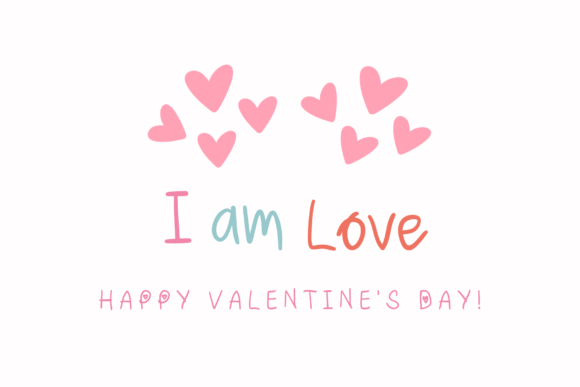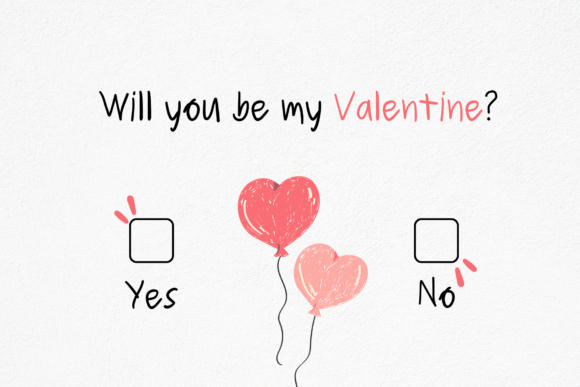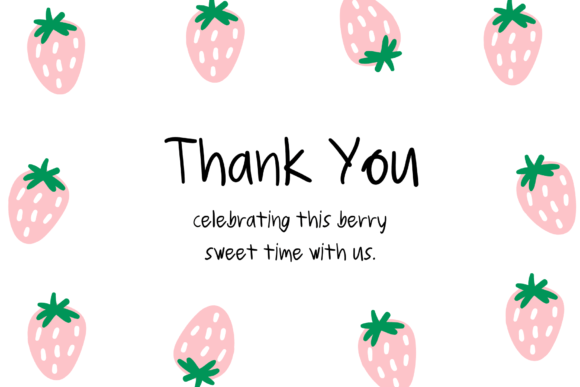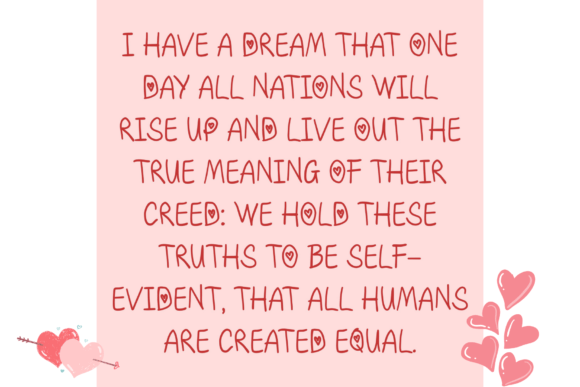
The Sweetest Font for Your Designs: A Comprehensive Guide to Chocolate Font
I’ll never forget the moment I stumbled upon the perfect font for a whimsical wedding invitation project. I was on a tight deadline, and my client wanted a design that was both playful and elegant. As I scrolled through my font library, I discovered Chocolate Font, and it instantly became the star of the show! 🍫 In this article, I’ll share my love for this adorable handwritten display font, its features, and how to make the most of it in your designs.
An Honest Review of Chocolate Font
So, what makes Chocolate Font so special? Let’s dive into the good stuff and a few quirks to keep in mind.
- ✨ Cute and Friendly: Chocolate Font is perfect for adding a touch of whimsy to your designs, making it ideal for crafts, digital design, presentations, wedding invitations, cards, and more.
- ✅ Easy to Read: Despite its playful nature, Chocolate Font remains highly legible, even at smaller sizes.
- 🎨 Versatile: This font is suitable for a wide range of creative projects, from school materials to professional designs.
While Chocolate Font is amazing, there are a few things to keep in mind:
- 🤔 Limited Formality: Due to its playful nature, Chocolate Font might not be the best choice for very formal or corporate designs.
- ⚠️ Overuse: As with any font, using Chocolate Font excessively can make your design look cluttered. Balance is key!
The Story Behind Chocolate Font
Chocolate Font was created with the intention of bringing a smile to people’s faces. Its designer aimed to craft a font that was both fun and approachable, perfect for a wide range of creative projects. Whether you’re a teacher, student, or designer, Chocolate Font is sure to become a favorite.
Q: Can I use Chocolate Font for my school projects?
A: Absolutely! Chocolate Font is ideal for school materials, including presentations, posters, and worksheets.
Q: Does Chocolate Font support OpenType features?
A: Yes, Chocolate Font supports OpenType features, including stylistic alternates and glyphs.
Q: Can I use Chocolate Font for my wedding invitations?
A: Chocolate Font is a popular choice for wedding invitations and other stationery due to its playful yet elegant feel.